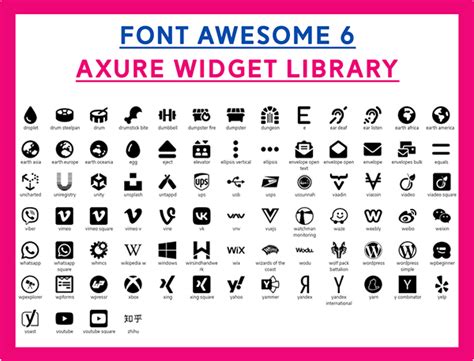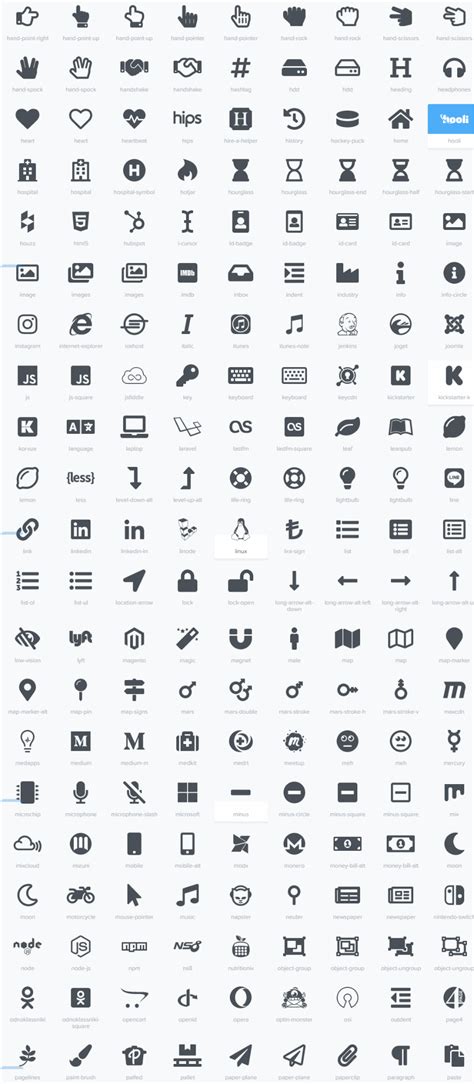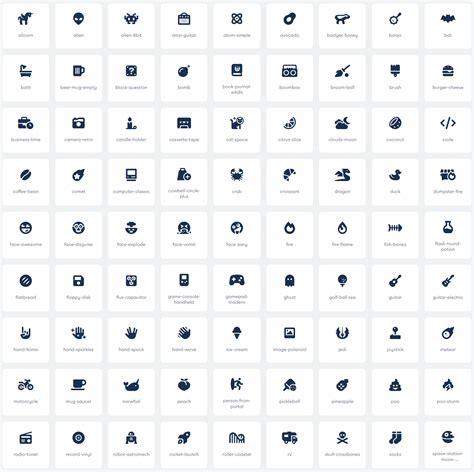
Font Awesome 6 Free Solid
Font Awesome 6 Free Solid - Make a bold statement in small. Web the world’s most popular and easiest to use icon set just got an upgrade. Font awesome icon in the solid style. Web font awesome 6 free solid fonts free downloads download formats ttf web svg eot woff woff2 otf pfa bin pt3 ps.
Web The World’s Most Popular And Easiest To Use Icon Set Just Got An Upgrade.
Web font awesome 6 free solid fonts free downloads download formats ttf web svg eot woff woff2 otf pfa bin pt3 ps. Make a bold statement in small. Font awesome icon in the solid style.